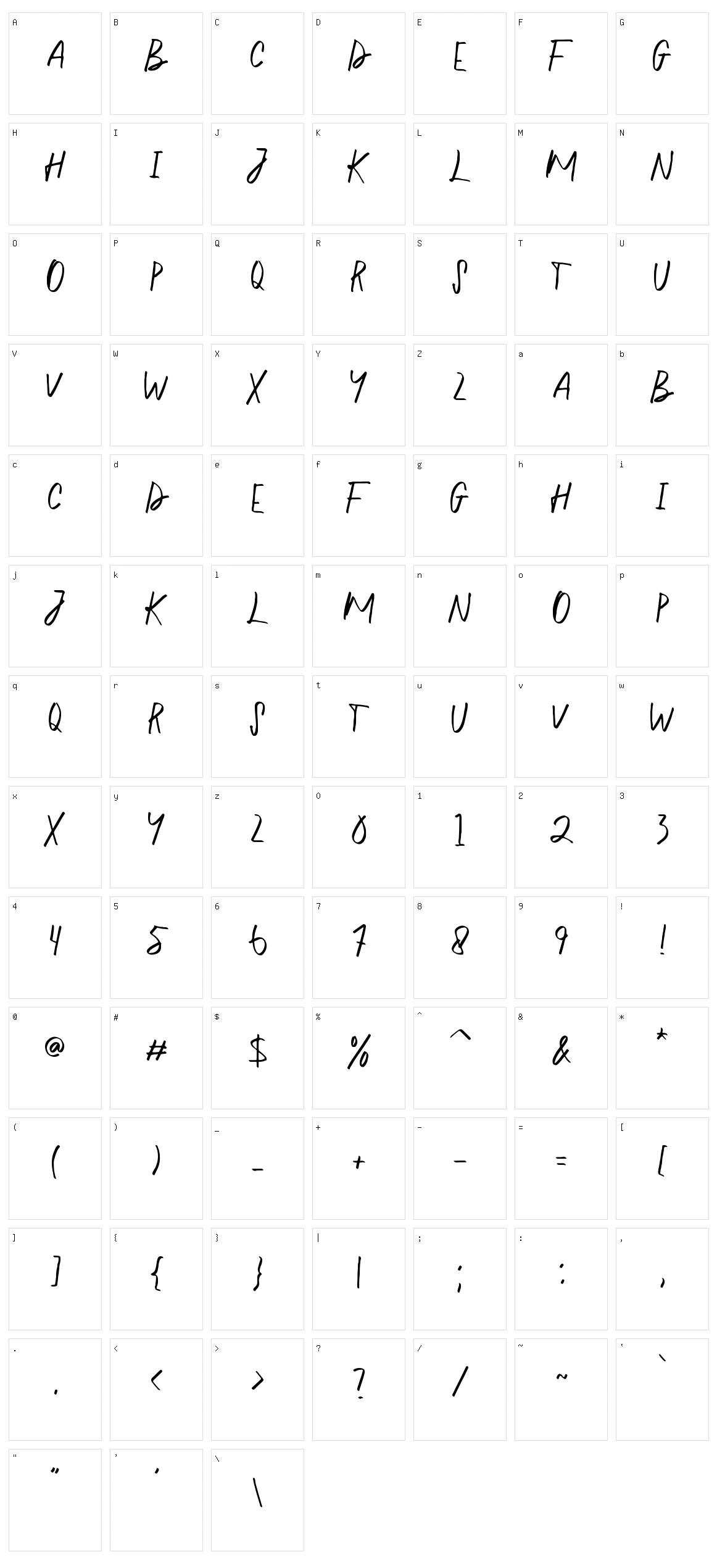
The free font Something Wrong is carefully designed by Invasi Typework, showcasing a thoughtful balance of creativity and usability and falls under the Script font style. When you download the ZIP file, it contains only 31.39 KB of font files, making it lightweight and quick to download. Please review the license details below to understand permitted usage and distribution rights. If license information is not available, we recommend using this font for personal projects only or contacting the author directly for commercial usage permissions.